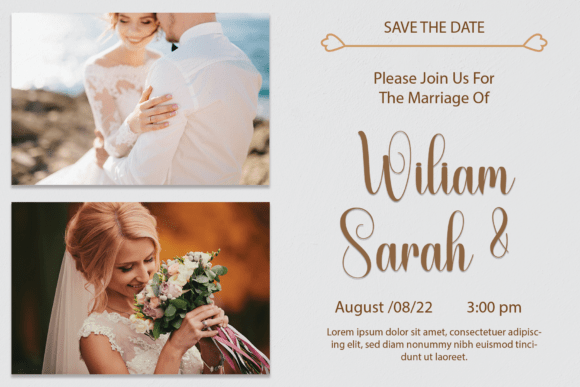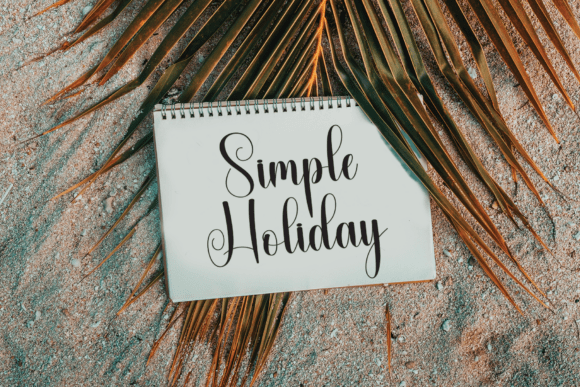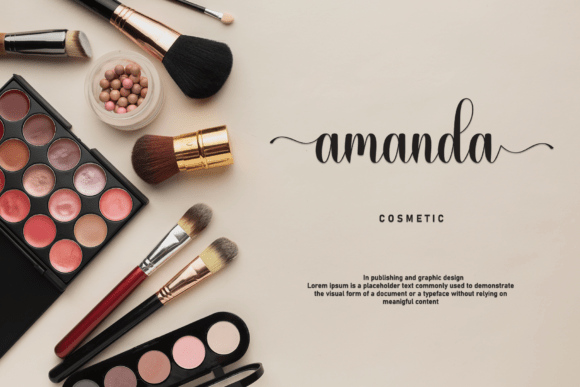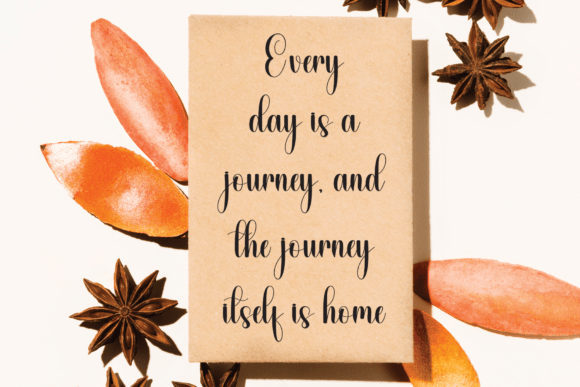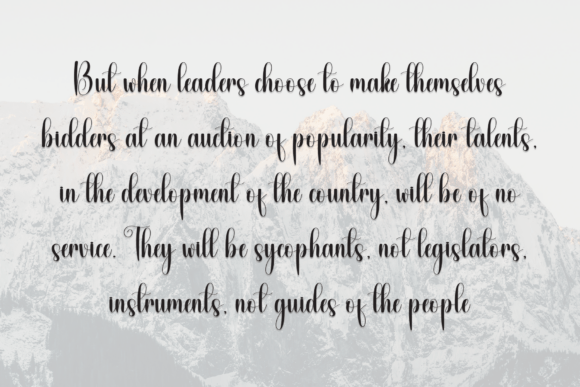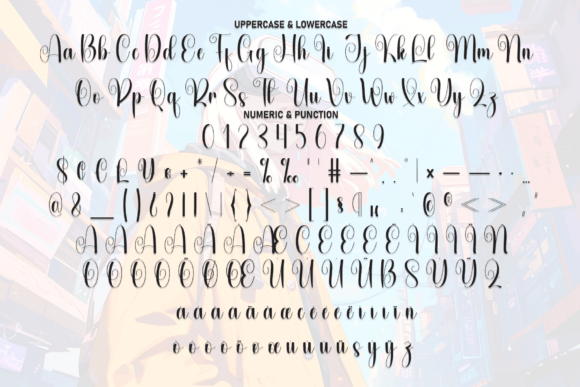
Unlock Your Creativity with Anime Font
Have you ever stared at a blank canvas, searching for the perfect font to bring your creative vision to life? That’s exactly what happened to me, and I’m sure I’m not alone. The right font can elevate an entire design, making it pop with personality and style.
That’s where Anime Font comes in – a special creative product designed to give you an extraordinary experience. With its latest style letters, you can take your designs to the next level, whether it’s a wall display, wedding invitation, or social media post logo. For designers, Anime Font is a valuable tool that offers endless possibilities and flexibility.
Anime Font Key Features
- Unique Characteristics: Anime Font features a distinctive, cursive style with exaggerated lines and curves, inspired by traditional Japanese animation (anime) and manga.
Designer Review: Anime Font
Overall, I think Anime Font has some great qualities that can make it a good choice for certain projects, but it also has some limitations that might make it not suitable for others. Let’s dive in and see what I mean!
- Unique and expressive style: Anime Font has a distinctive look that’s perfect for projects that need a touch of anime-inspired flair.
- Good for titles and headings: The font is clear and easy to read, making it a good choice for titles and headings where readability is important.
- Fun and playful feel: Anime Font can add a sense of fun and whimsy to a project, which can be great for projects like video games, comics, or animation.
- Limited legibility: While the font is clear for titles and headings, it can be a bit difficult to read at smaller sizes, which might make it less suitable for body text.
- Not suitable for formal projects: Anime Font is best suited for projects that have a playful or creative vibe, and might not be the best choice for formal projects like business reports or academic papers.
- Not highly customizable: Anime Font is a bit limited in terms of customization options, which might make it less suitable for projects that require a high degree of flexibility.
Anime Font is a fun and expressive font that can be a great addition to certain projects. However, it’s not without its limitations, and users should be aware of those before choosing it for their project. With a bit of caution and planning, Anime Font can be a great choice for the right project, but it might not be the best fit for everyone.
Tips for Getting the Most Out of Anime Font
Use anime font to create eye-catching titles and headings in your designs.
Add special effects such as glow or shadow to make your text stand out.
Experiment with different font sizes and styles to create a unique look.
Anime font is commonly used in:
Anime and manga-inspired designs